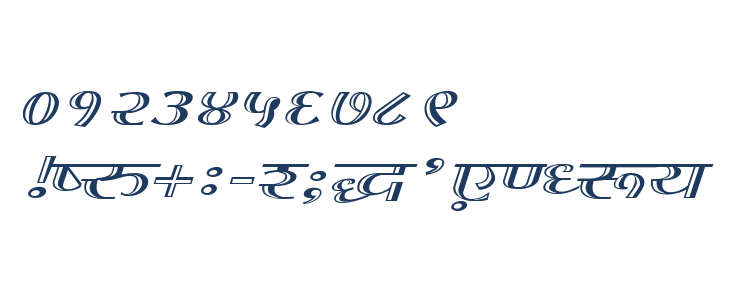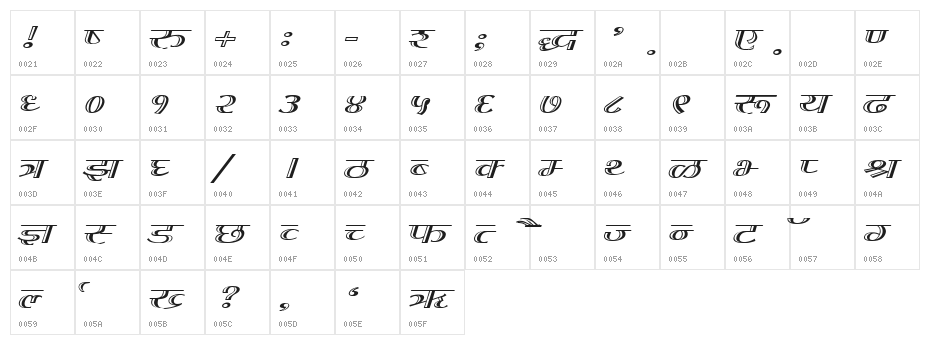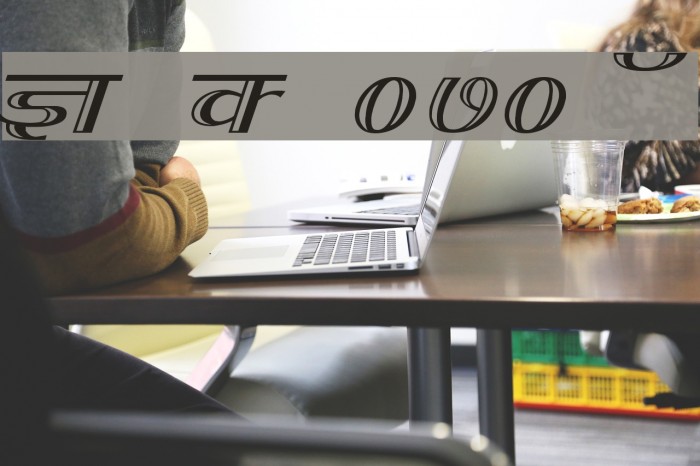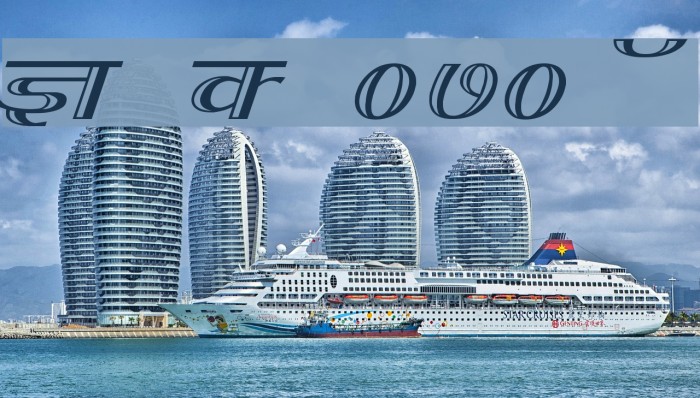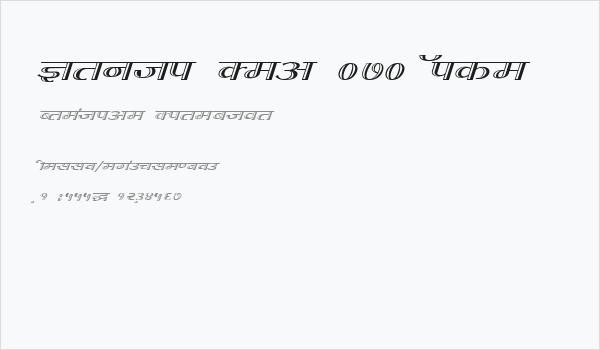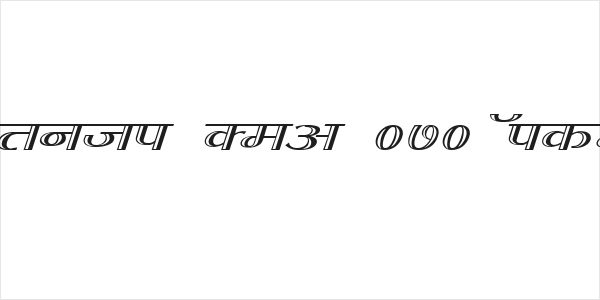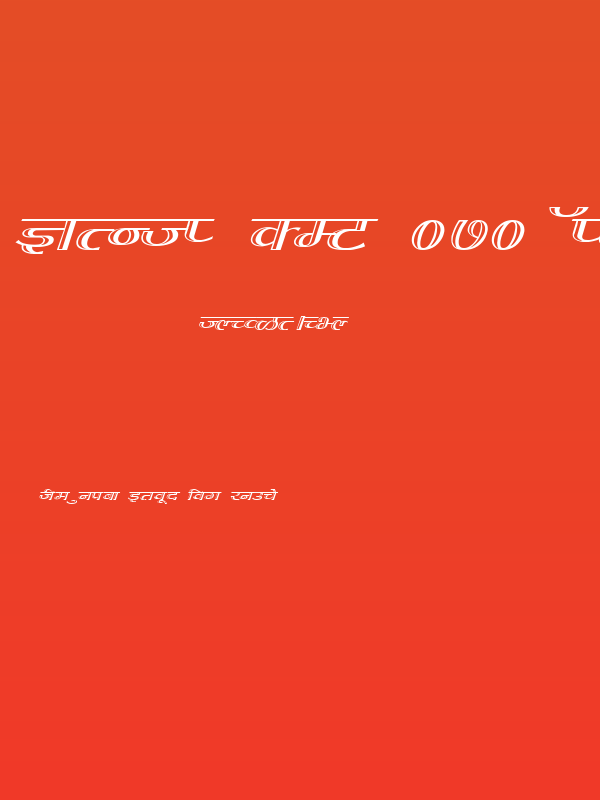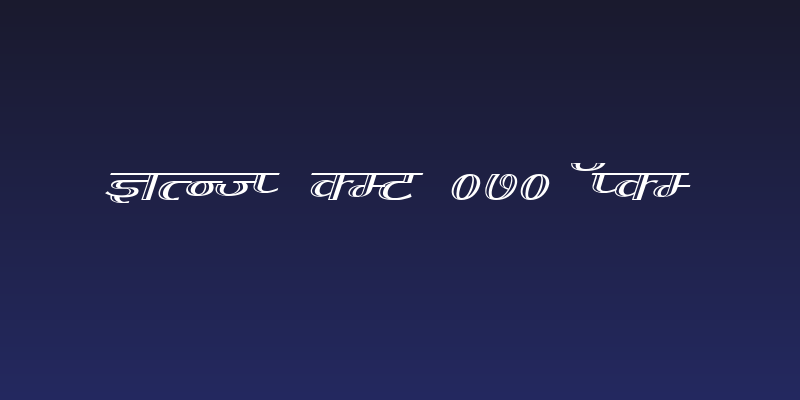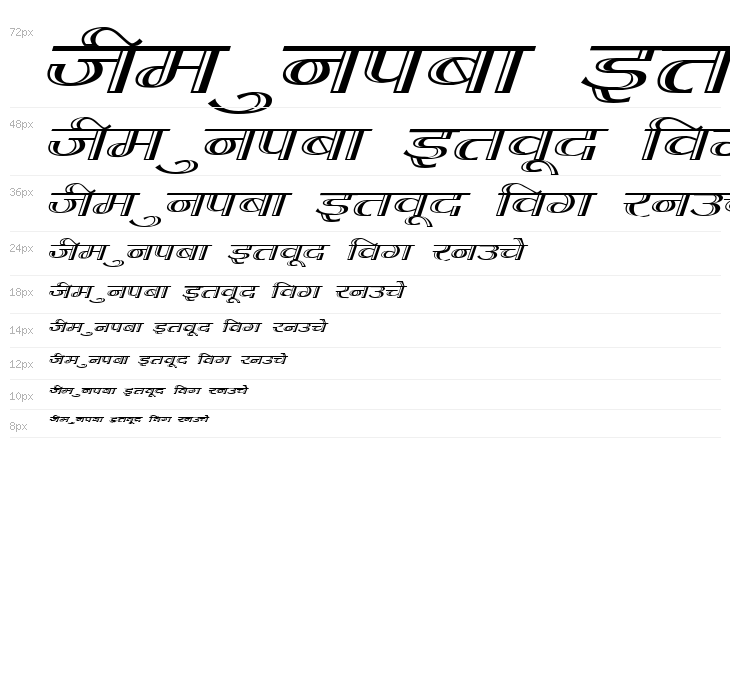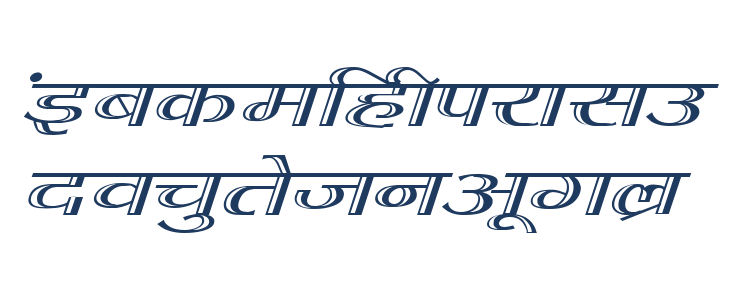
Kruti Dev 070 Wide Font
Kruti Dev 070 Wide Description
This font features a distinctive style with a blend of traditional and modern elements. The characters are crafted with a unique flair, showcasing elegant curves and sharp edges. The script is characterized by its decorative strokes and intricate details, making it suitable for artistic and cultural projects. The font maintains a consistent baseline, providing a harmonious flow across text. Its design is both bold and expressive, capturing attention with its dynamic appearance. The font's structure is well-balanced, offering readability while maintaining its artistic essence.
| Use Case | Headlines, Artistic designs, Cultural projects |
| Proposed Projects | Ideal for cultural projects, artistic designs, invitations, and decorative headings. |